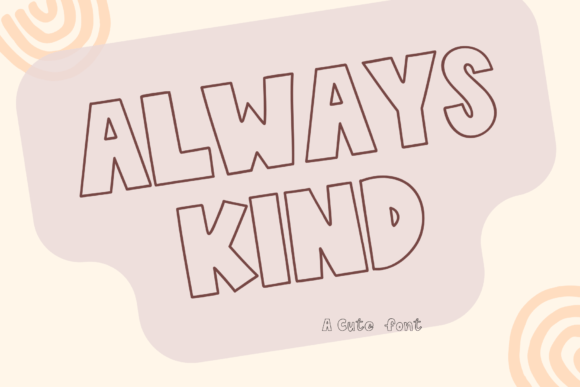
The Joy of Always Kind Font: A Designer’s New Best Friend
I’ll never forget the summer I spent countless hours searching for the perfect font for a client’s project. We were going for a fun, summery vibe, and I wanted something that would capture the essence of sunshine and good vibes. That’s when I stumbled upon Always Kind Font, a delightful handwritten display font that instantly stole my heart. Its cute, casual charm and lovely design have made it a staple in my design toolkit, and I’m excited to share its awesomeness with you! 🌞
An Honest Review: What I Love and What’s Not So Perfect
- Always Kind Font is ridiculously easy to read, even at smaller sizes, making it perfect for a wide range of design projects.
- The font’s playful, handwritten feel adds a touch of warmth and personality to any design.
- It’s incredibly versatile and works beautifully for both digital and print projects.
A Few Quirks to Keep in Mind 🤔
- While the font is generally great for body text, it might not be the best choice for very long paragraphs or small text sizes.
- Some users might find the font a tad too casual for certain projects, but I think this is part of its charm! 😊
The Story Behind Always Kind Font
While the true story behind Always Kind Font remains a mystery, it’s easy to imagine a designer creating this font on a sunny summer day, surrounded by good vibes and creative energy. Perhaps they wanted to craft a font that would spread joy and positivity through design. Whatever the inspiration, Always Kind Font has undoubtedly brought happiness to many designers and crafters around the world! 🌈
Q: Is Always Kind Font suitable for body text?
A: While Always Kind Font is generally great for display text, it can be used for body text in certain contexts. However, it’s recommended to use it for shorter paragraphs or larger text sizes.